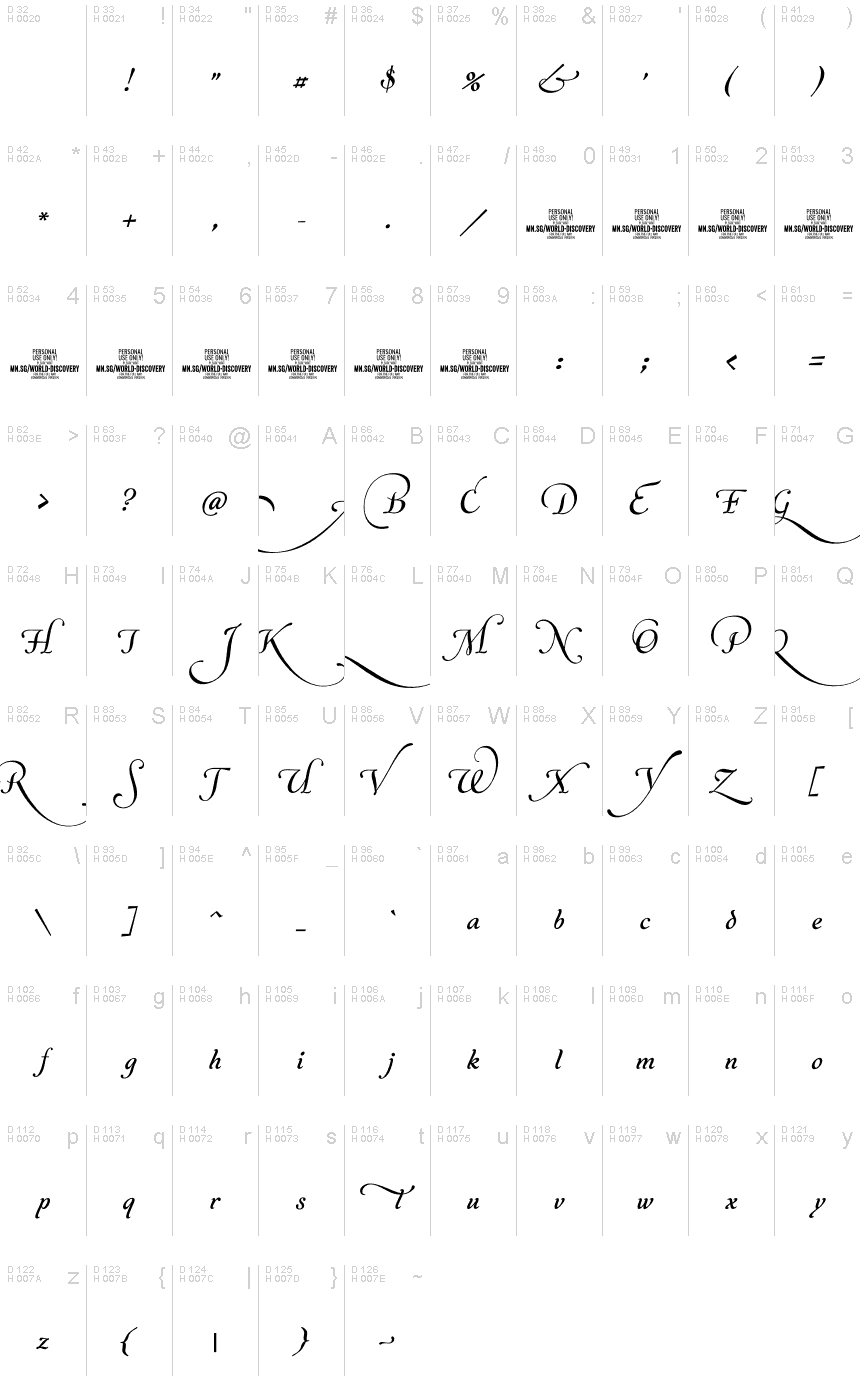
World Discovery Three is a captivating calligraphy font designed by Mans Greback. Its graceful strokes and elegant curves make it perfect for branding luxurious travel agencies, exquisite wedding invitations, and sophisticated event posters. With its versatile range of styles, from thin and delicate to bold and impactful, this font is also an ideal choice for fashion magazines, beauty blogs, and high-end lifestyle websites. Elevate your designs with World Discovery Three's timeless charm and create a captivating visual experience that leaves a lasting impression on your audience.
World Discovery is a stunning calligraphy font that exudes a sense of romance and curiosity. The artistic swirls and slanted serifs come together to create a distinctive and exclusive typeface that will bring an antique charm to your designs.
World Discovery has its origin in 15th-century discovery maps. Designer Mans Greback showcases the art of exploration with the unique and evocative letterforms that make up the World Discovery font.